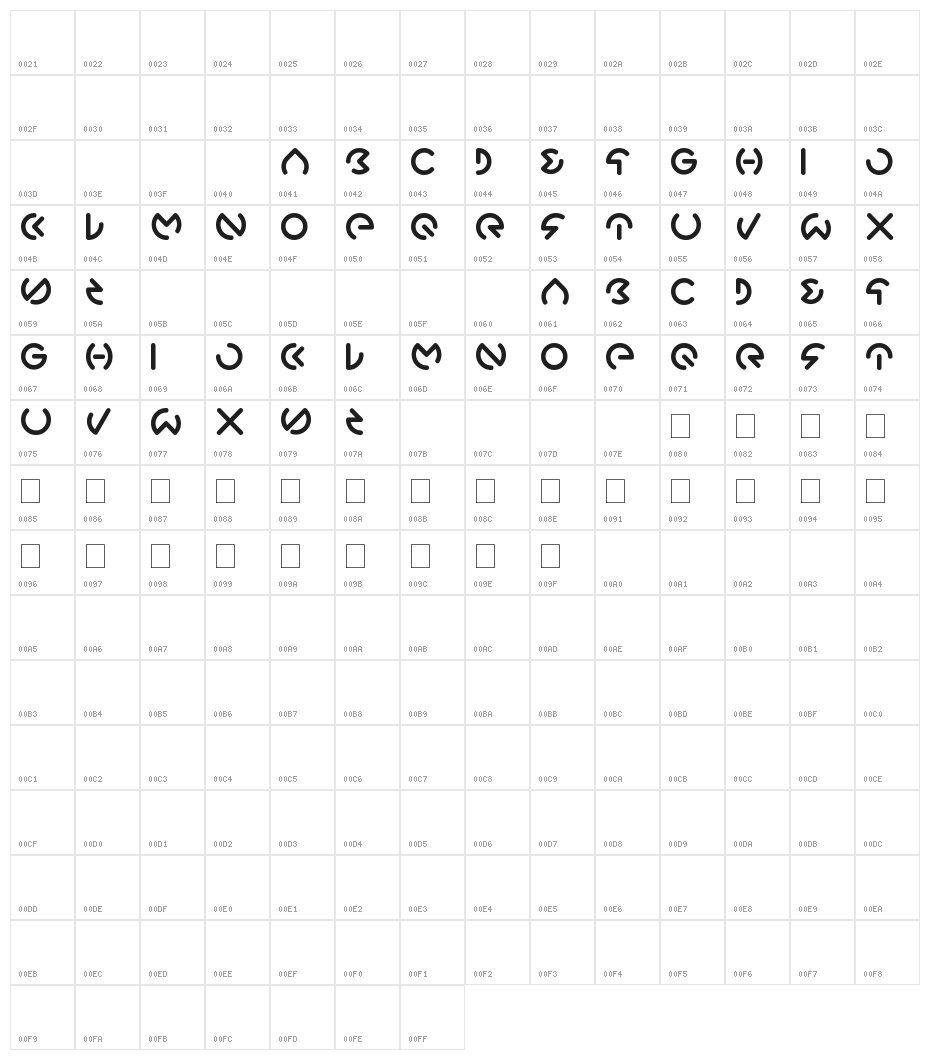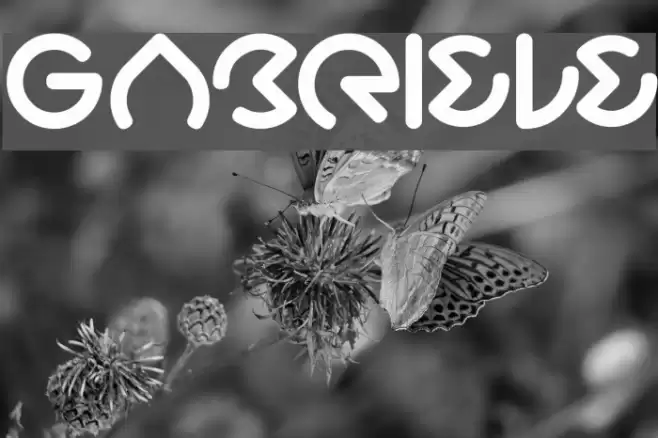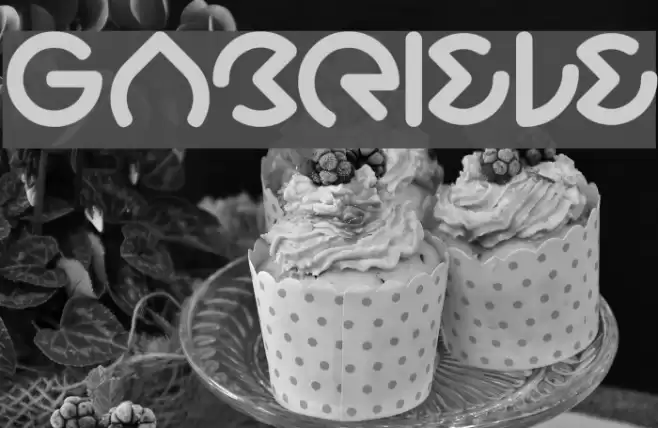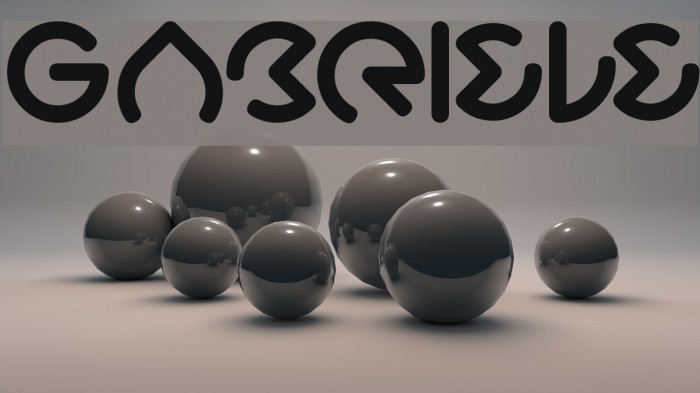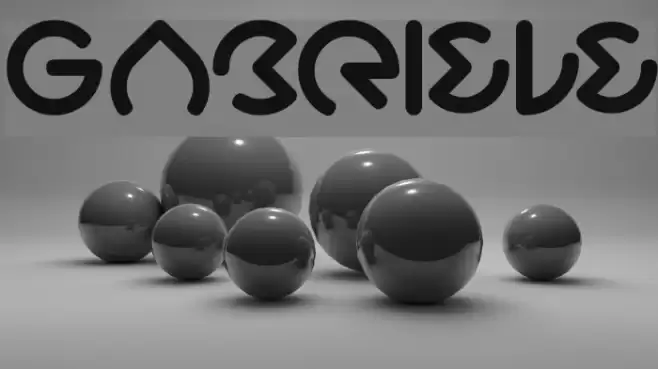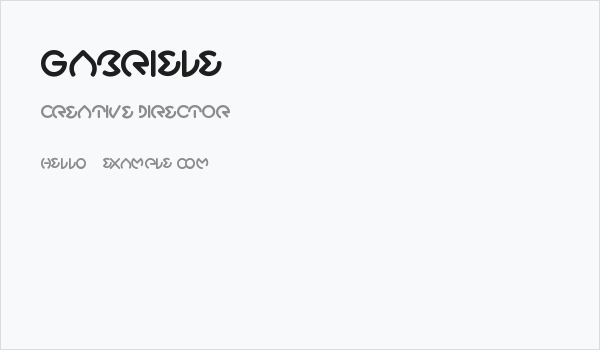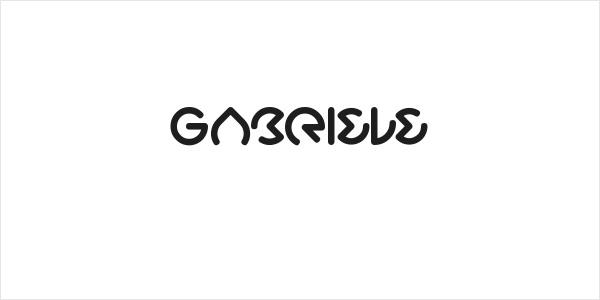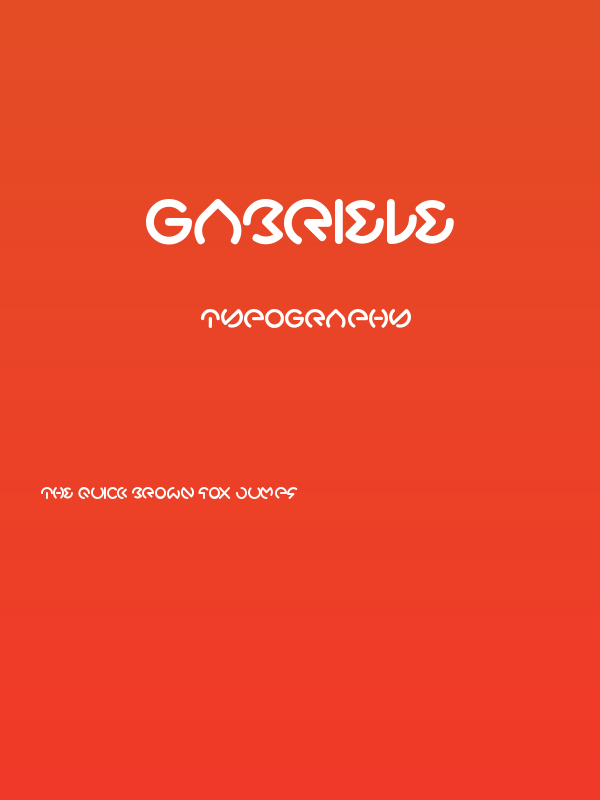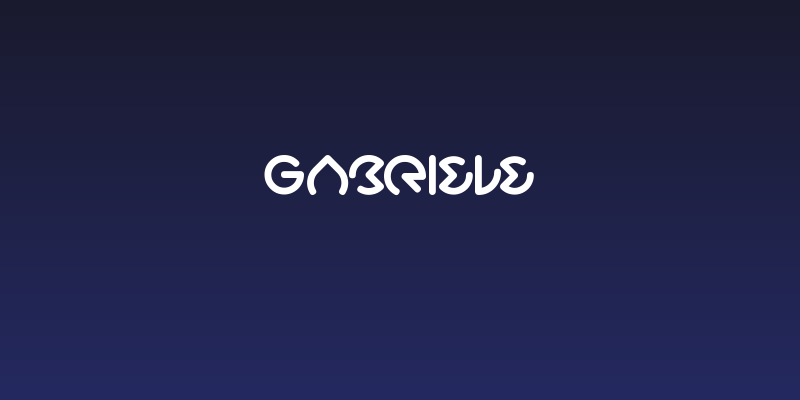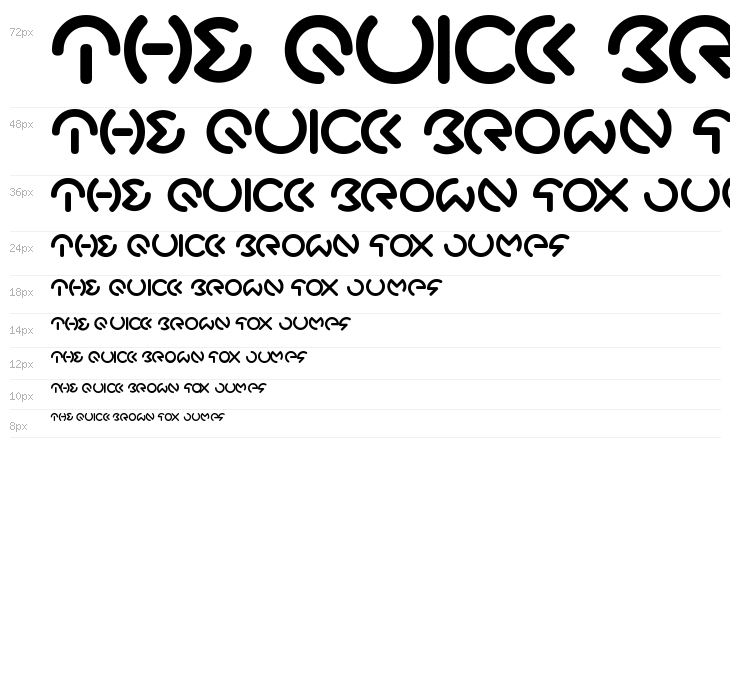
Gabriele Font
Gabriele Description
This font features a unique, futuristic design with rounded edges and a bold presence. The characters are crafted with a consistent thickness, creating a harmonious and cohesive look. The uppercase and lowercase letters share a similar style, enhancing the uniformity of the typeface. The numbers and special characters are designed to match the overall aesthetic, making this font versatile for various applications. Its distinct style is eye-catching and memorable, suitable for projects that require a modern and innovative touch.
| Proposed Projects | Ideal for sci-fi themed designs, tech branding, video game interfaces, and modern advertising. |